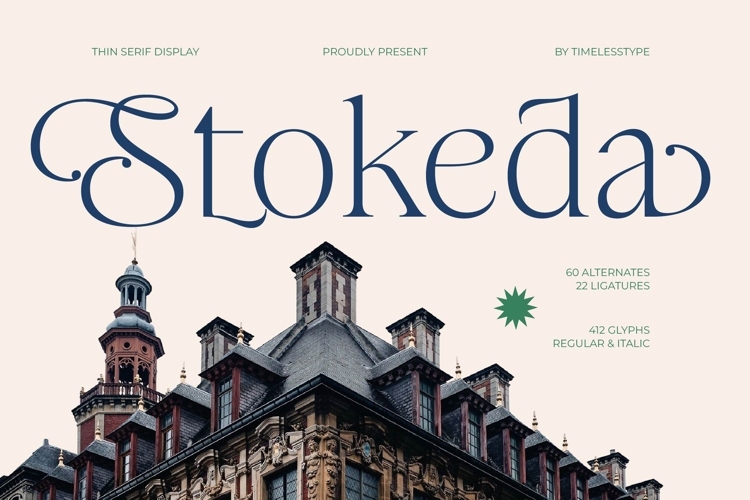
Stokeda - Thin Serif Display Font
Elevate your design aesthetic with unparalleled sophistication through the refined lines of Stokeda - Thin Serif Display Font. This modern typography solution captures a perfect balance between classical influence and contemporary artistic elegance, featuring high-contrast strokes that demand immediate attention. With its expansive set of 412 glyphs, Stokeda - Thin Serif Display Font serves as a definitive choice for creators seeking to instill a sense of prestige and timeless beauty into their visual narratives.
Precision craftsmanship meets high-end functionality, making this typeface a powerhouse for luxury branding and high-fashion editorial design. The delicate yet assertive structure of Stokeda - Thin Serif Display Font is perfect for premium packaging, sophisticated logo design, and upscale advertising where personality and clarity are paramount. Whether utilized for a magazine masthead or a website hero headline, this font transforms digital and print surfaces into premium visual experiences.